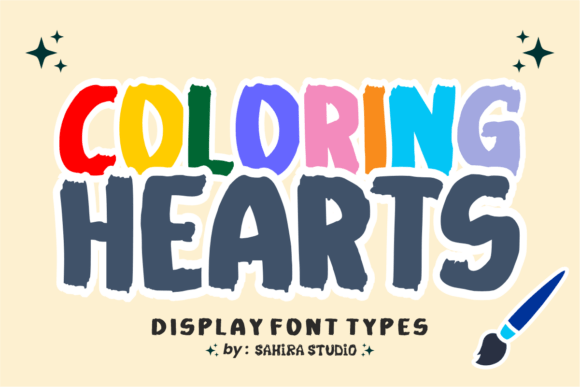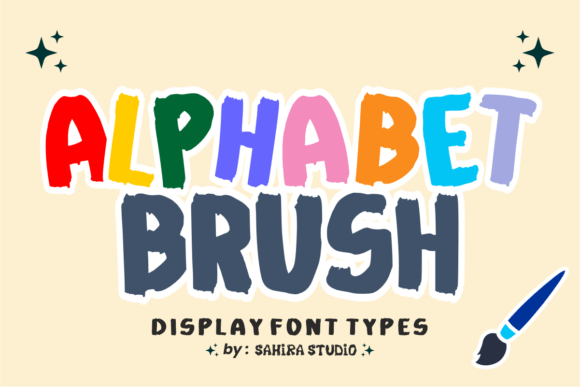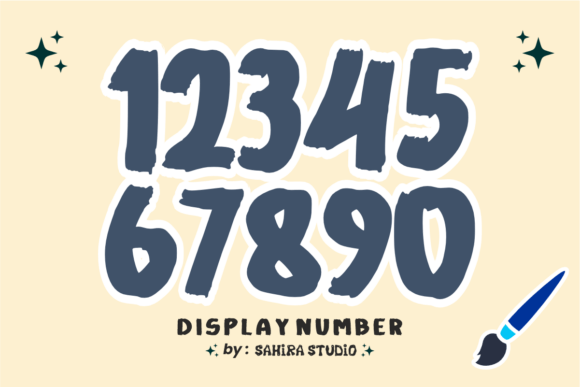
Introduction to Junior Painter Font
Introducing “Junior Painter,” a cheerful and modern display font consisting exclusively of uppercase letters.
Each character is cute, unique, and sweet, making it easily recognizable Perfect for children’s craft designs, sublimated t-shirts, mugs, tote bags, animations, comic titles, children’s coloring books, children’s supplies, and more.
Key Features of Junior Painter Font